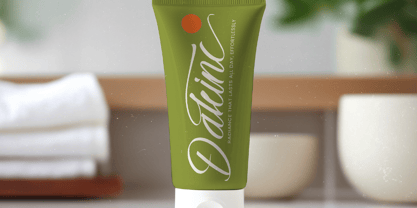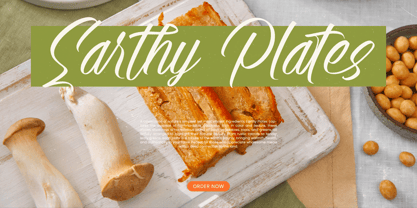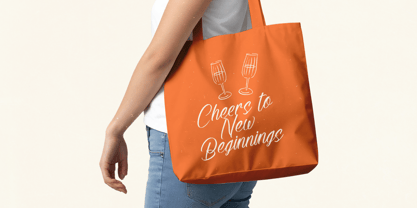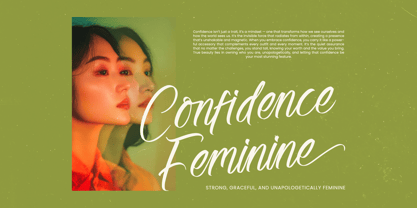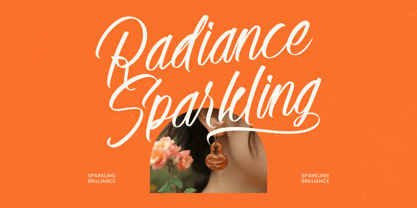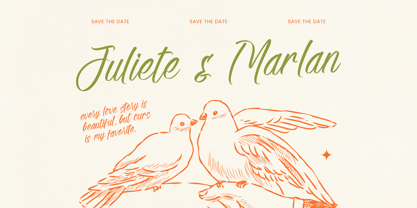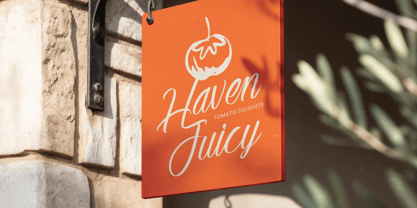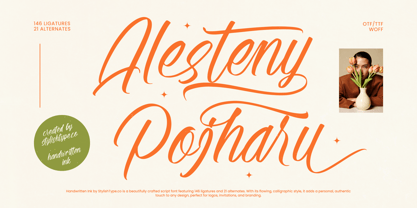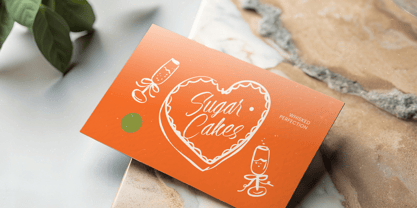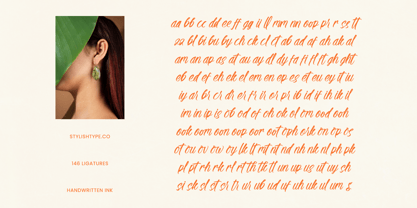
Alesteny Pojharu
The Alesteny Pojharu Font Family was designed by Heru Utama Putra and published by Stylishtype Studio. Alesteny Pojharu contains 2 styles and family package options.
Alesteny Pojharu is a beautifully crafted handwritten ink script font designed to deliver elegance, personality, and expressive flow in every letterform. Inspired by natural calligraphic strokes and authentic pen movement, this typeface blends smooth curves with confident brush pressure to create a refined yet organic aesthetic. Featuring 146 ligatures and 21 alternates, Alesteny Pojharu offers extensive typographic flexibility, allowing seamless connections and stylish variations for sophisticated compositions. Perfect for logos, invitations, branding, packaging, social media graphics, wedding stationery, and editorial layouts, this script font adds a personal and premium touch to both print and digital projects. With its flowing rhythm and handcrafted character, Alestey Pogharu brings warmth, authenticity, and modern elegance to any design.